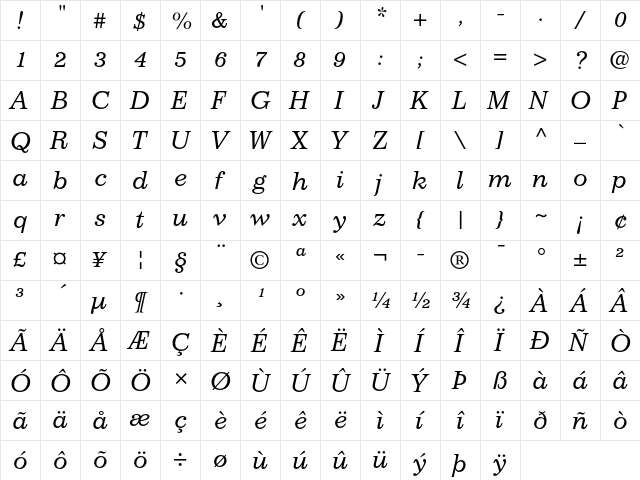
Impressum Italic
Design Context for Impressum Typeface
Impressum takes a measured approach to typography — its balanced proportions and neutral character make it a reliable workhorse for both digital and print work. The slanted form adds forward momentum and visual energy.
Pro Tip: Use Impressum for emphasis, pull quotes, and subheadings where its slanted energy can add rhythm to the layout.